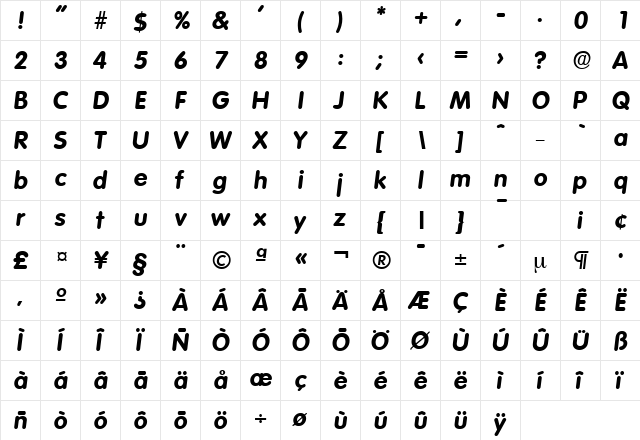
Volkswagen-Serial-ExtraBold RegularItalic
Design Context for Volkswagen-Serial-ExtraBold Typeface
Volkswagen-Serial-ExtraBold takes a measured approach to typography — its balanced proportions and neutral character make it a reliable workhorse for both digital and print work. The slanted form adds forward momentum and visual energy. Its bold stroke weight gives it real presence on the page.
Pro Tip: Use Volkswagen-Serial-ExtraBold for emphasis, pull quotes, and subheadings where its slanted energy can add rhythm to the layout.